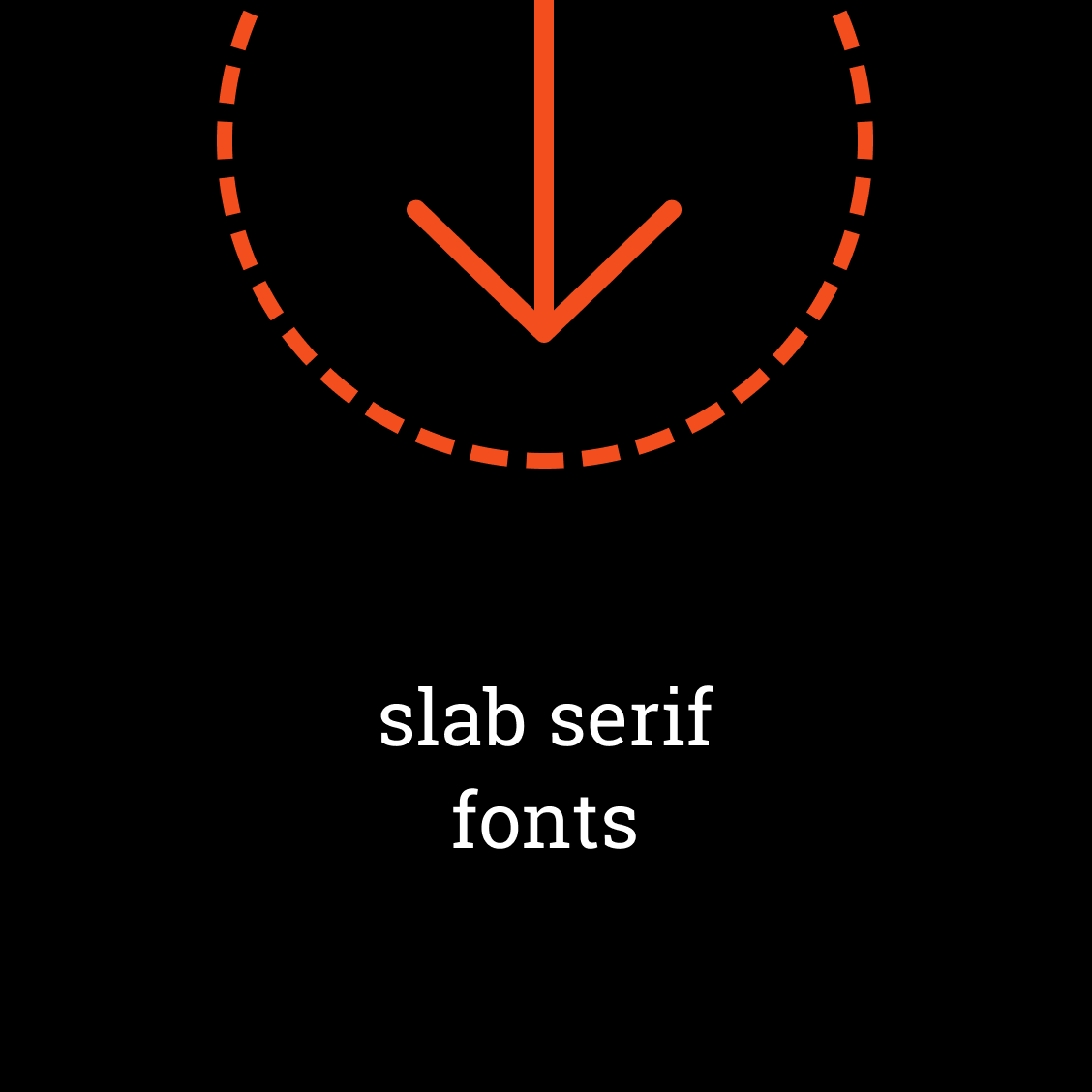
Slab serif pairings
In typography, certain fonts will have a blunt and angular or rounded line at the end of a larger stroke: these are called slab serif fonts.
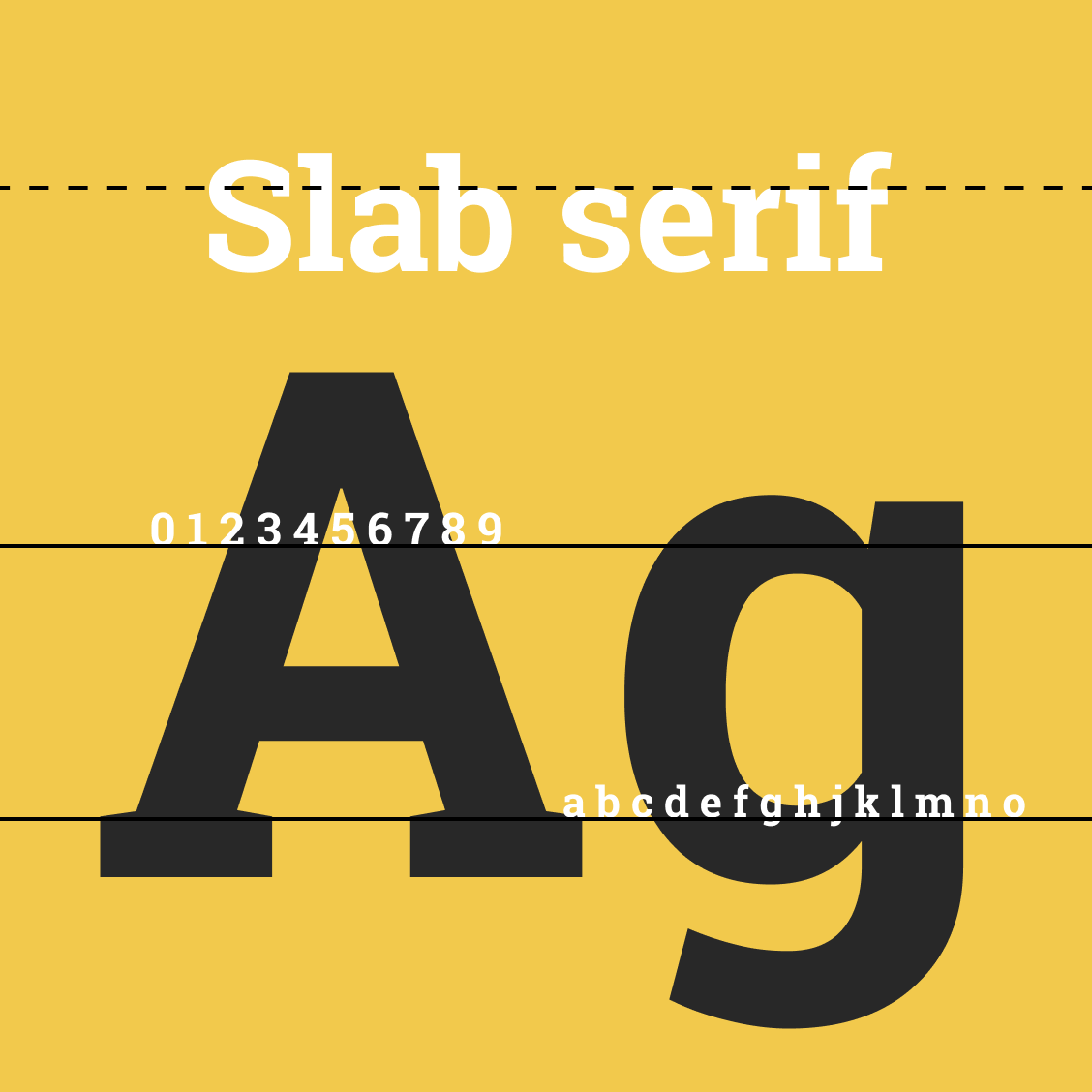
Roboto Slab font pairing
Roboto Slab is part of the open source Roboto family, that features friendly and open curves.
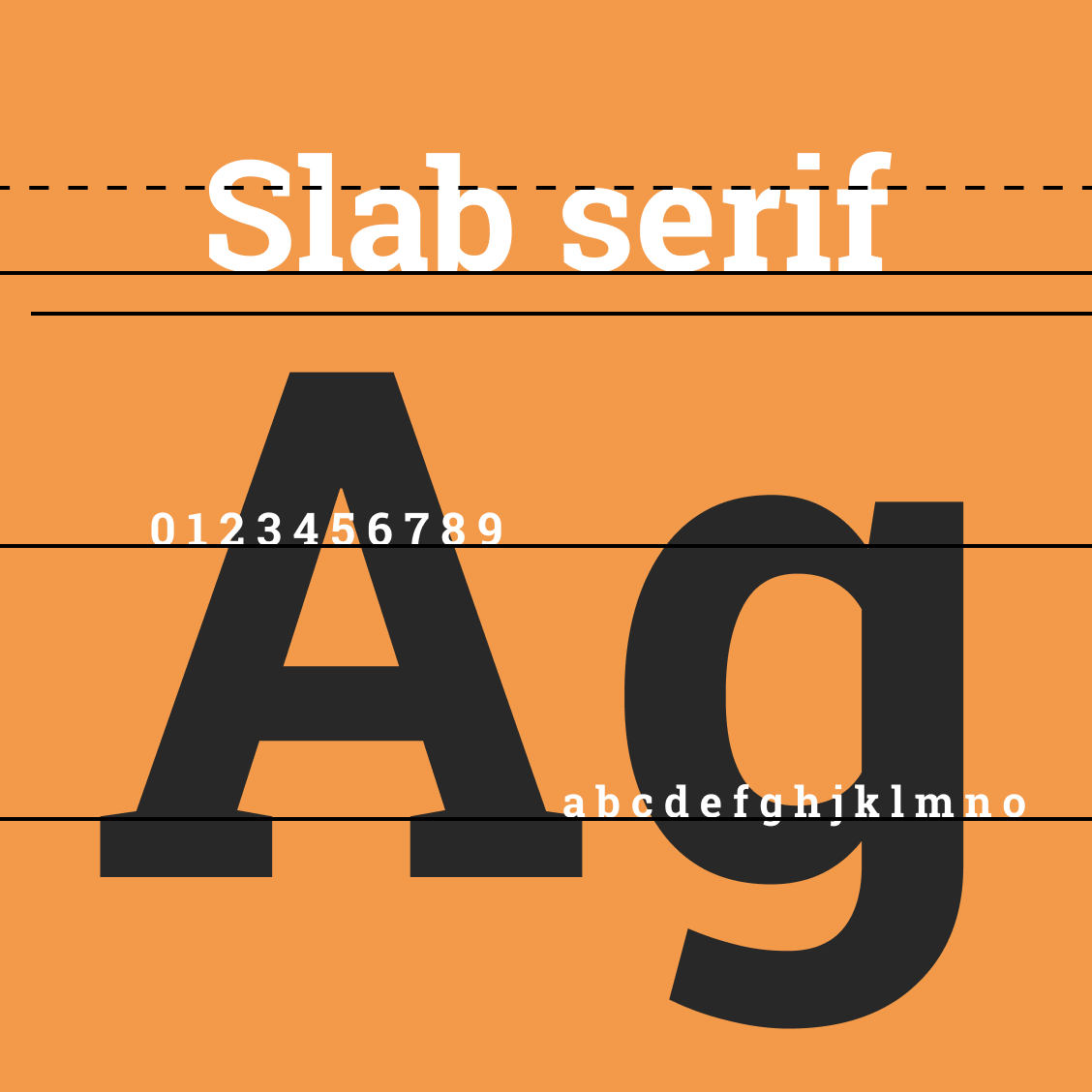
Josefin Slab font pairing
Josefin Slab is an elegant geometric typeface with modern details. It has a sister family, Josefin Sans.
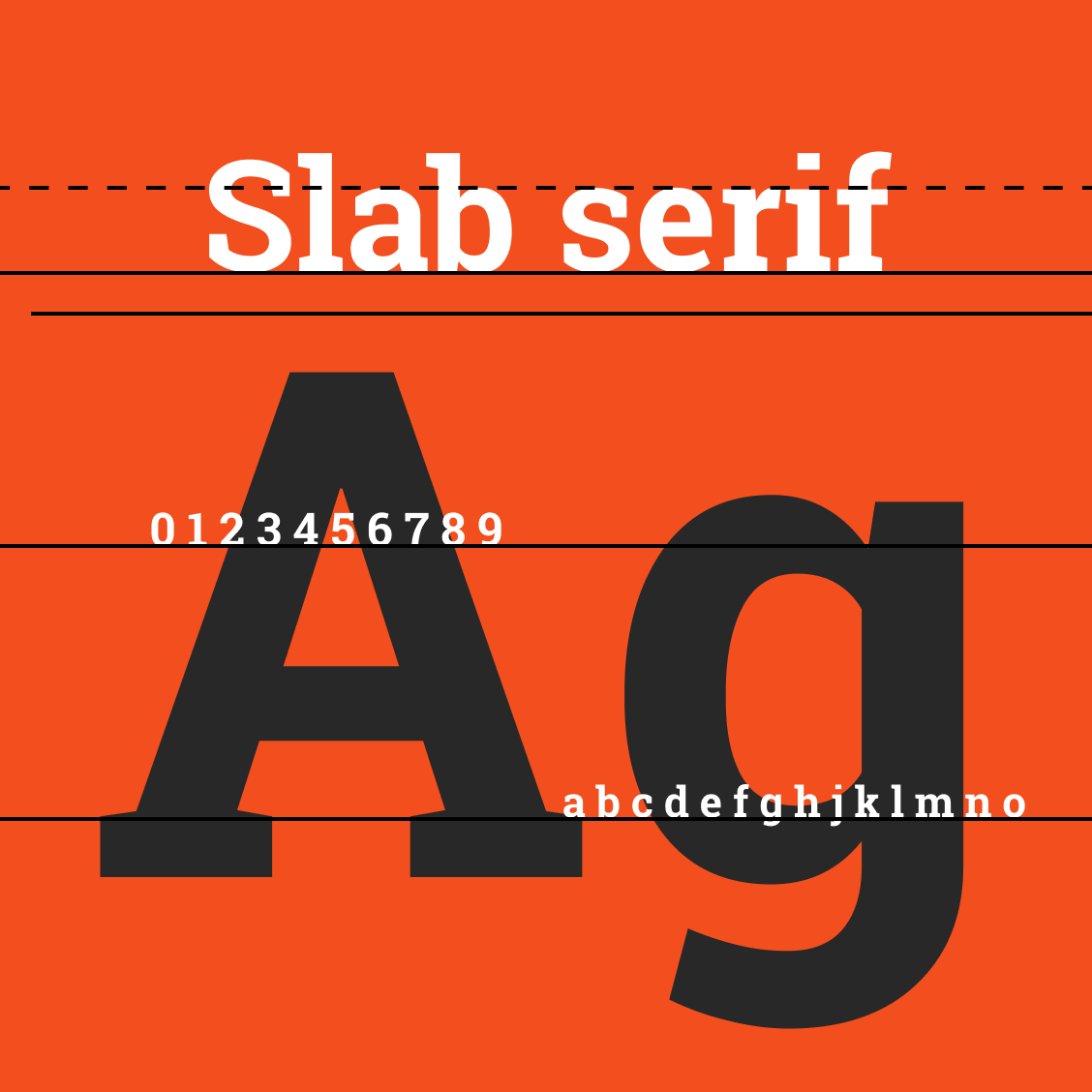
Zilla Slab font pairing
Zilla Slab is a contemporary slab serif and Mozilla's core typeface, used throughout their designs.
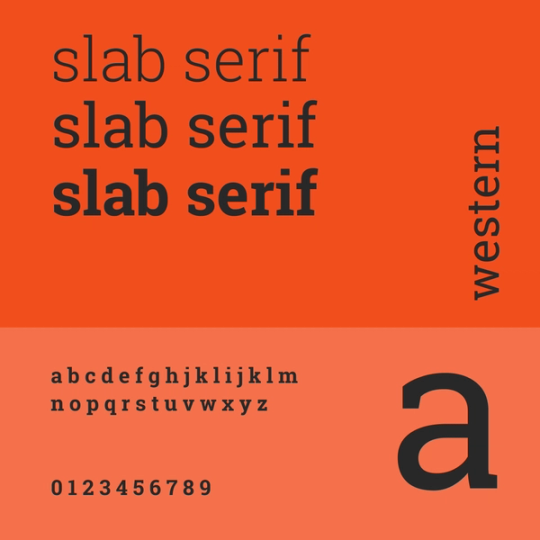
When to use slab serif fonts
Slab serif fonts are varied in genre: more bold, heavy, and extreme slab serifs are perfect for grabbing attention on posters, while monospaced slab serifs are ideal for use in computer programming.
Courier Slab Serif
Slab serif fonts were typically used in typewriters, most notably Courier typewriters. The Courier typeface by Howard “Bud” Kettler has been adapted into the ubiquitous font seen on most computers today.
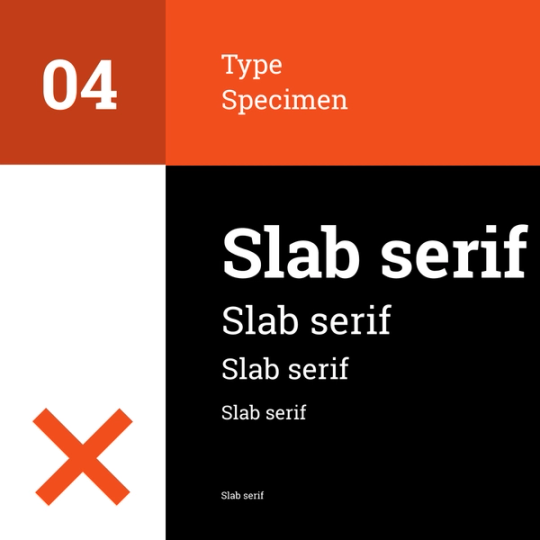
Typewriter typefaces
There are many subgroups of slab serif fonts, including Antique, Clarendon, Italienne, and Geometric models, and Typewriter typefaces. Typewriter slab serifs are named for their use in strike-on typewriting.
Free slab serif fonts
Slab serifs have incredible variety: Rokkitt draws inspiration from early slab serifs, Josefin Slab is a clean geometric Scandinavian style, and Roboto slab is mechanical with round, readable curves.